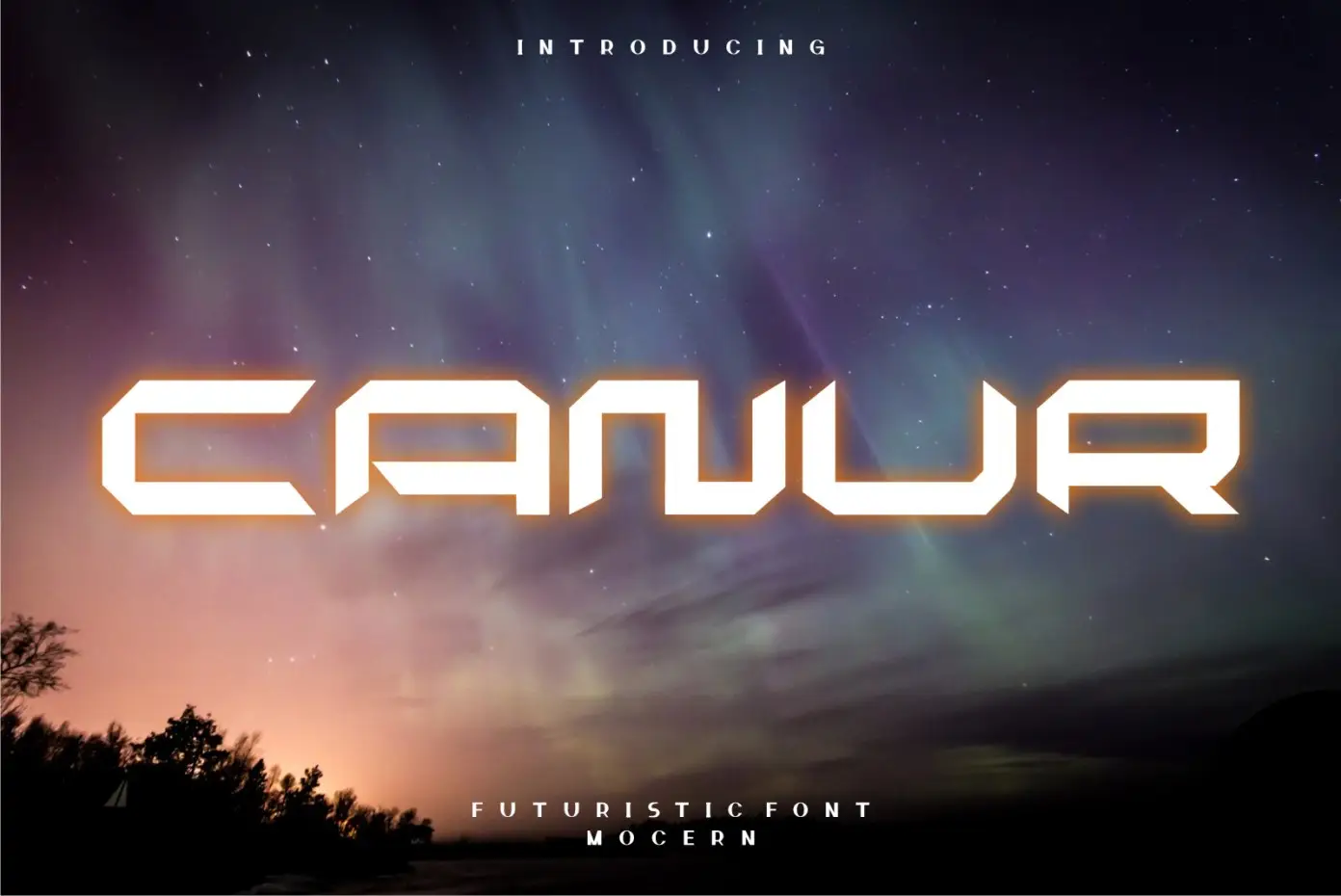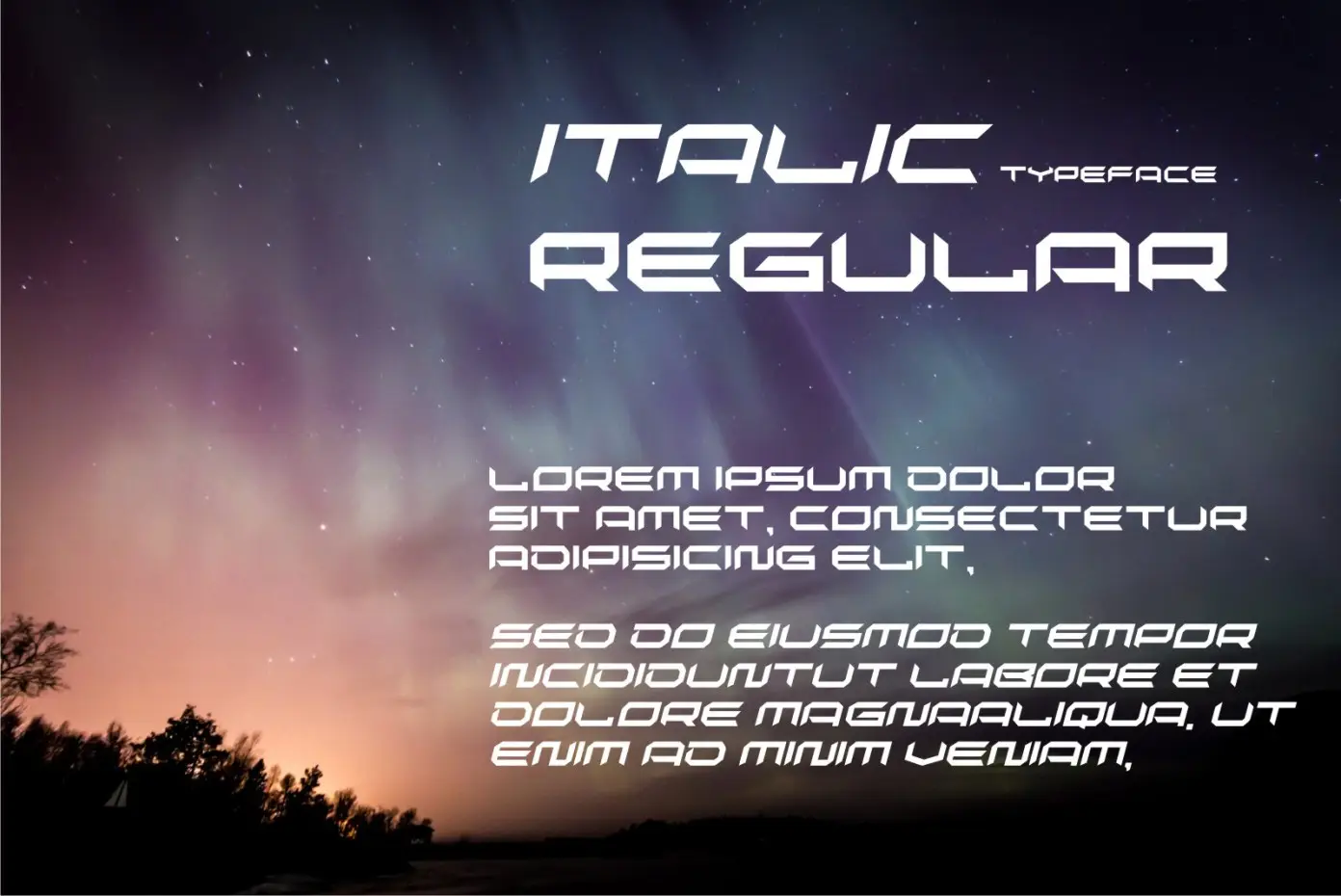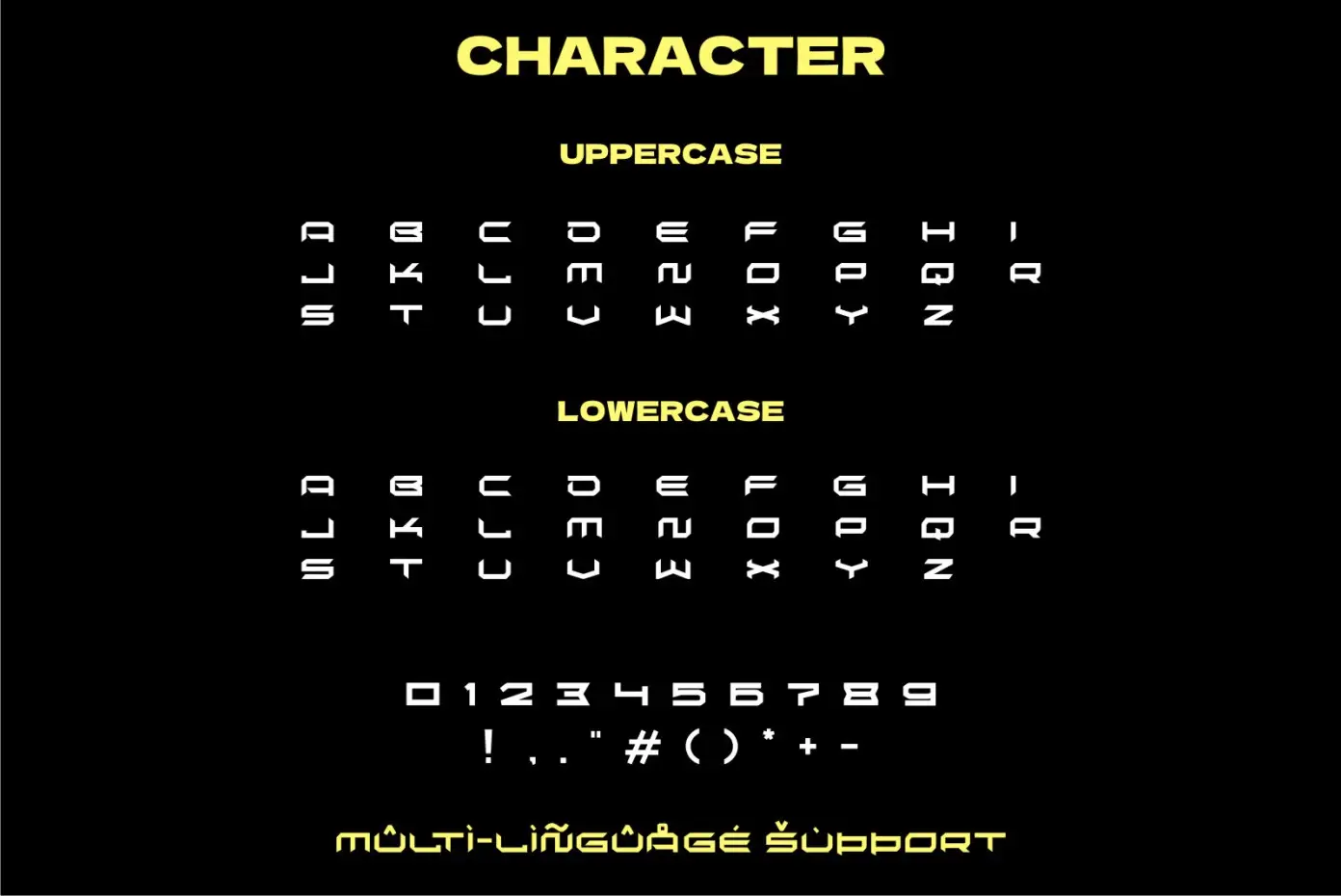
Canur Font
The Canur Font is a versatile typeface designed to bring elegance and clarity to your projects. With its modern aesthetic, this font is perfect for a variety of applications, including branding, logos, web design, and print materials.
• Multiple font weights for flexibility
• Stylish characters that enhance readability
• Unique design suitable for both headlines and body text
Utilize Canur Font in your branding projects for a cohesive look, or use it in web design to create engaging user interfaces. Its readability makes it an excellent choice for both digital and print applications.